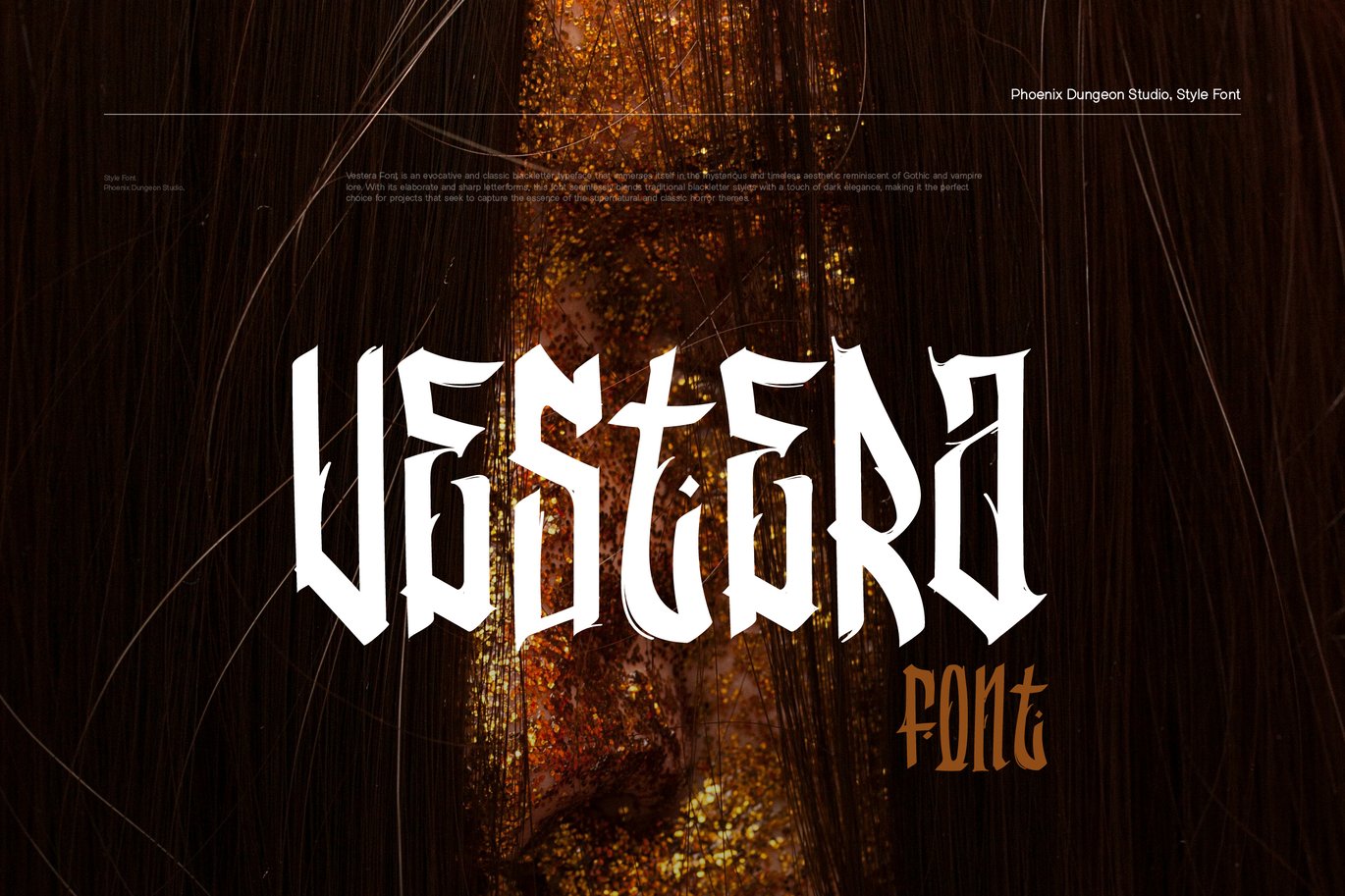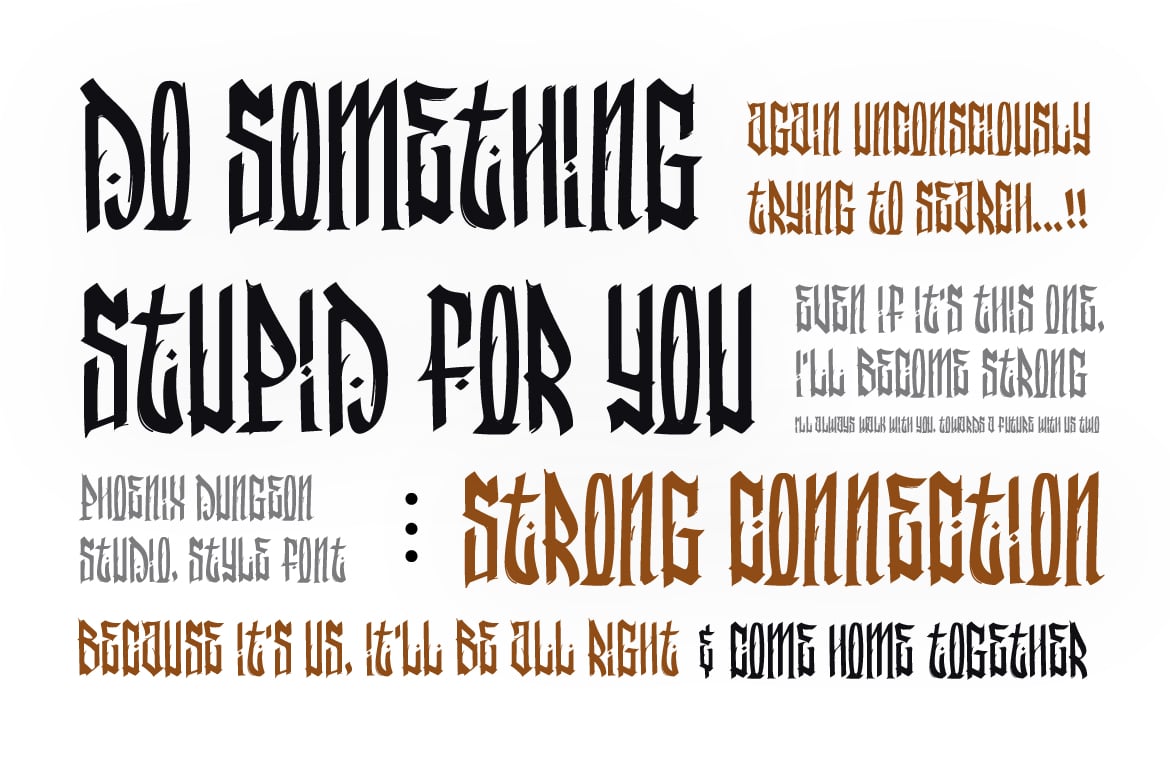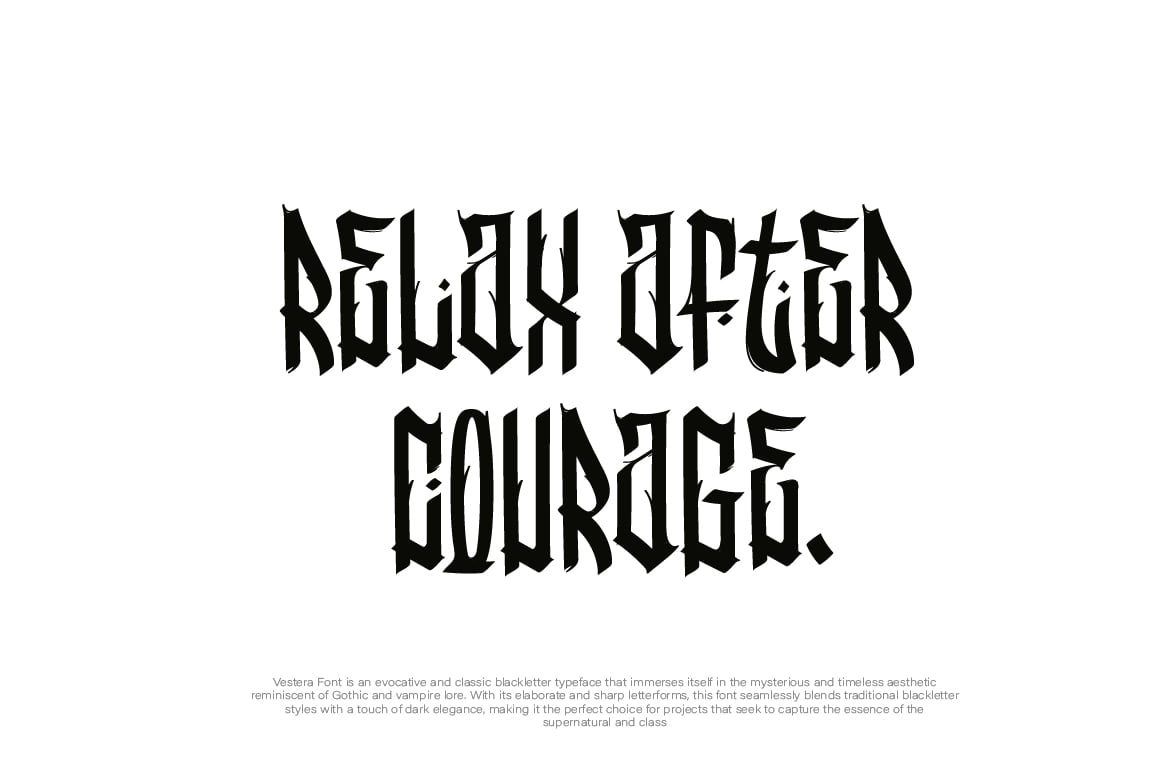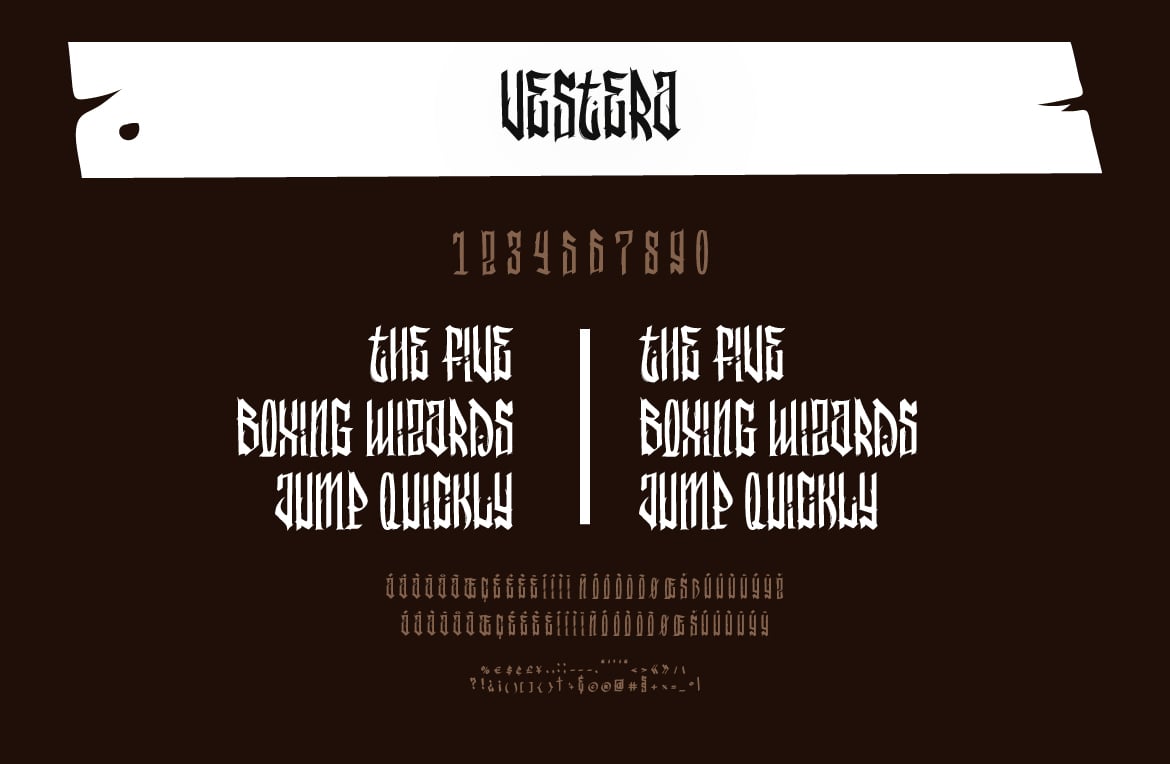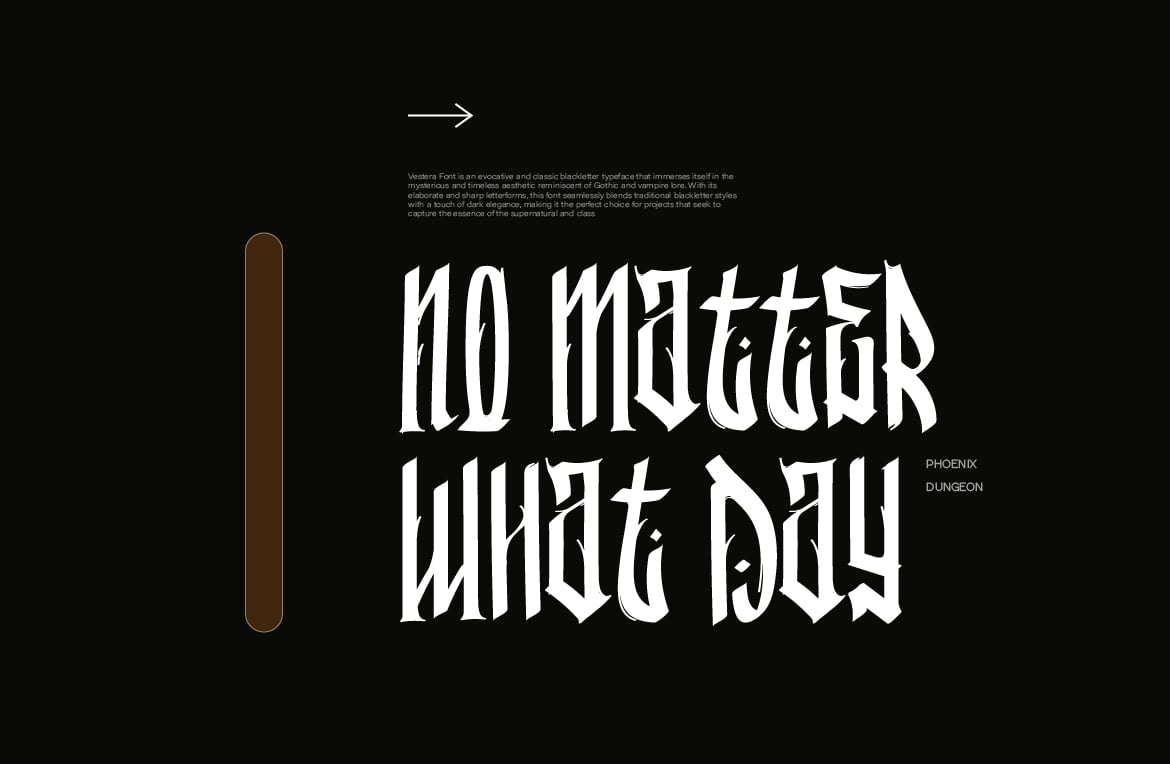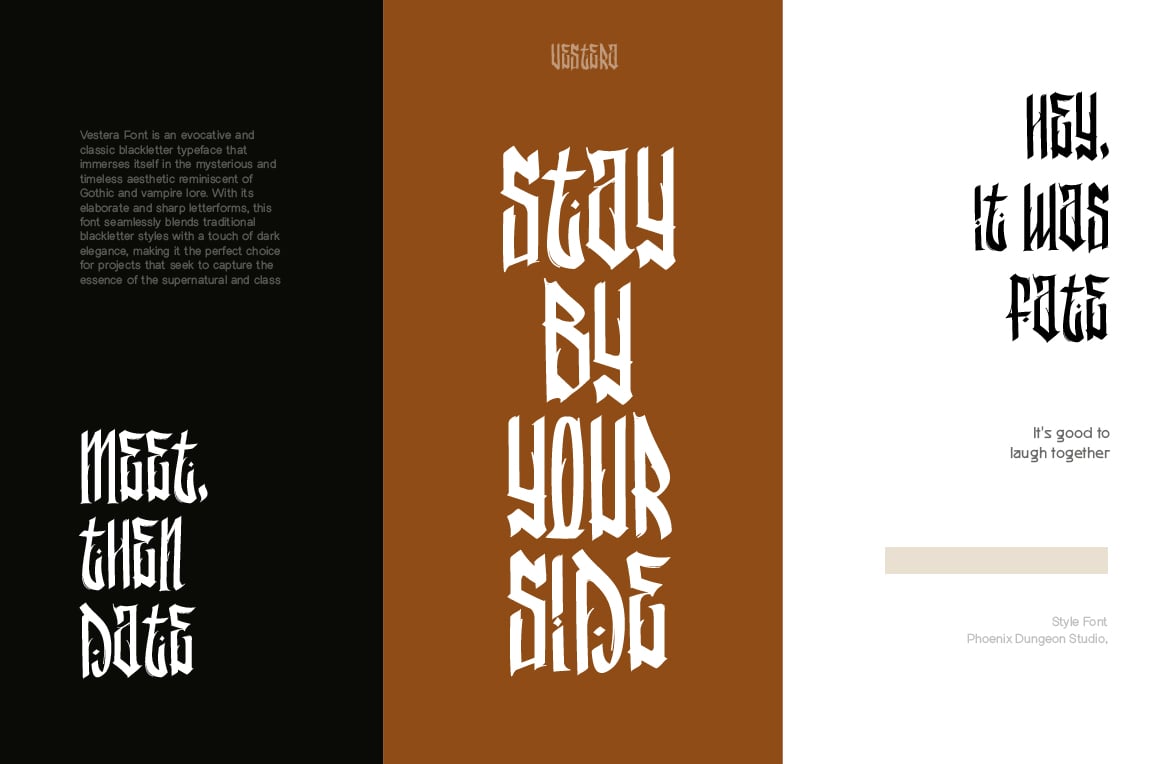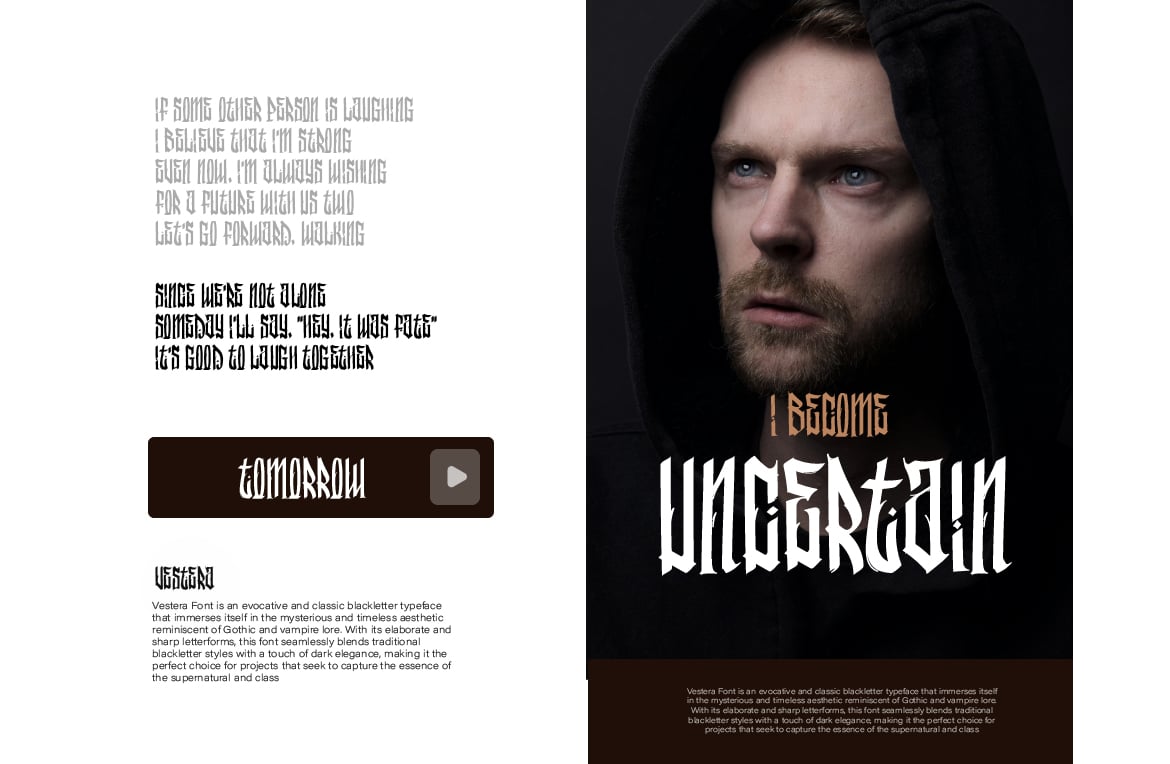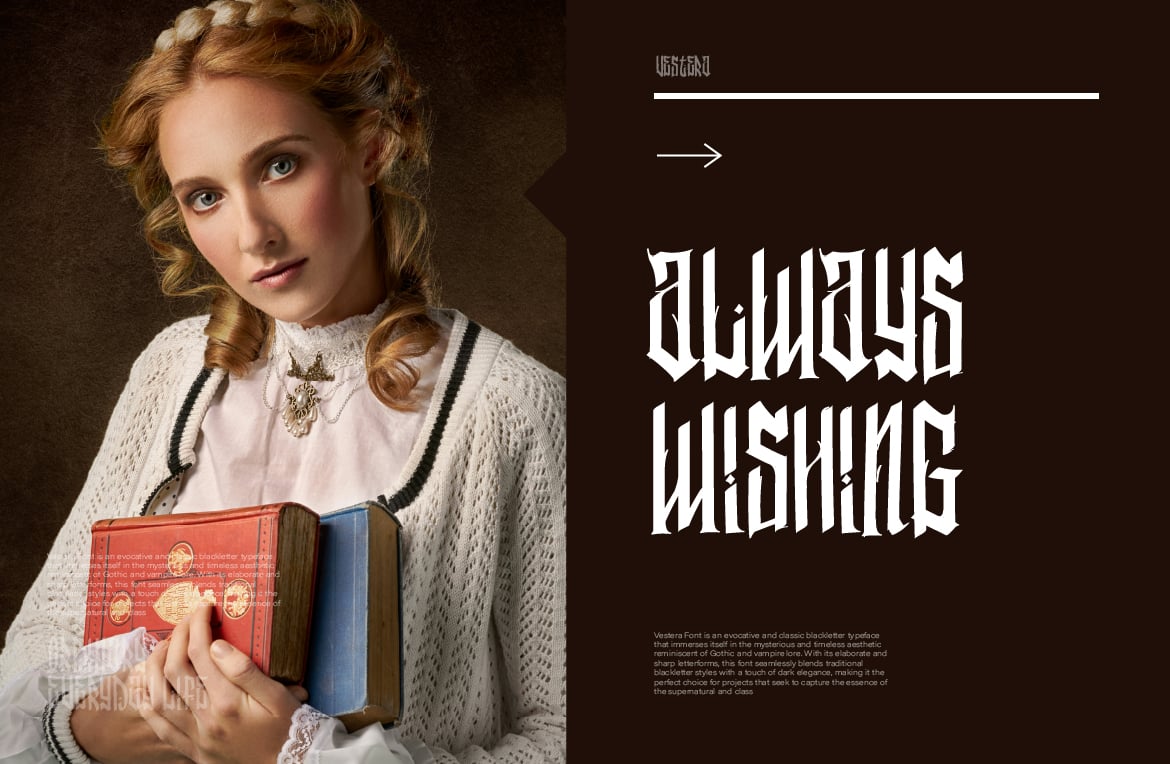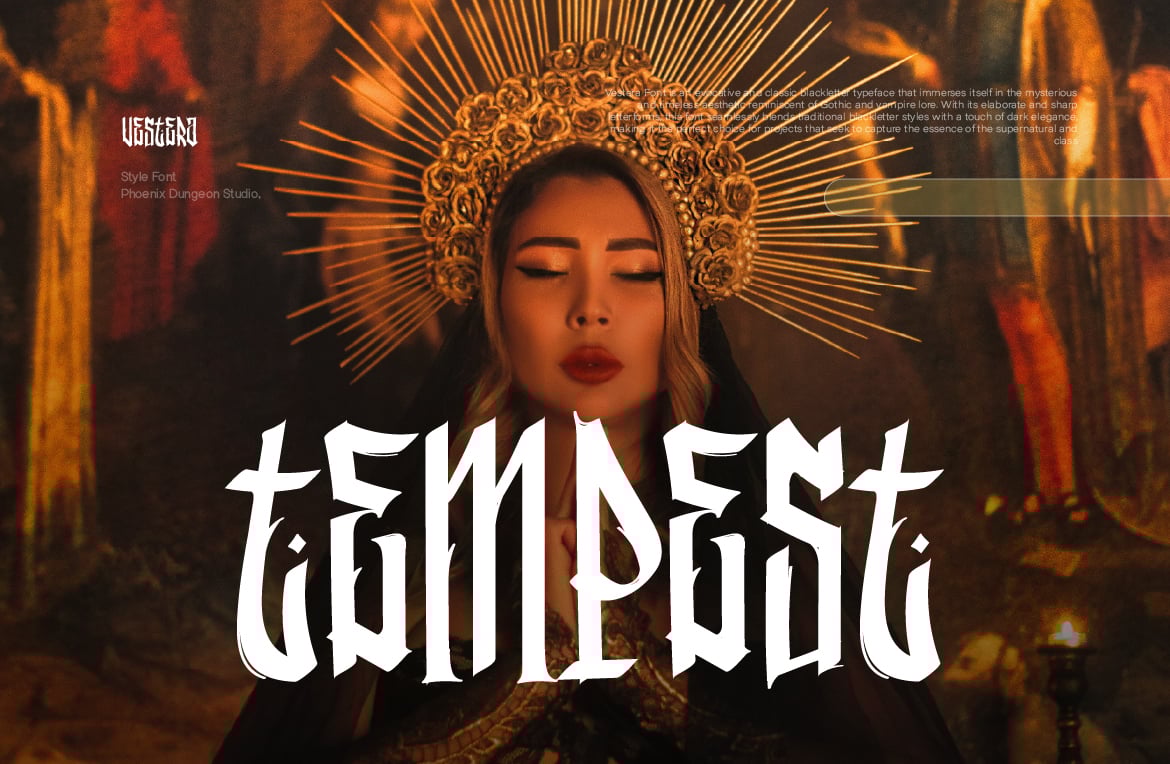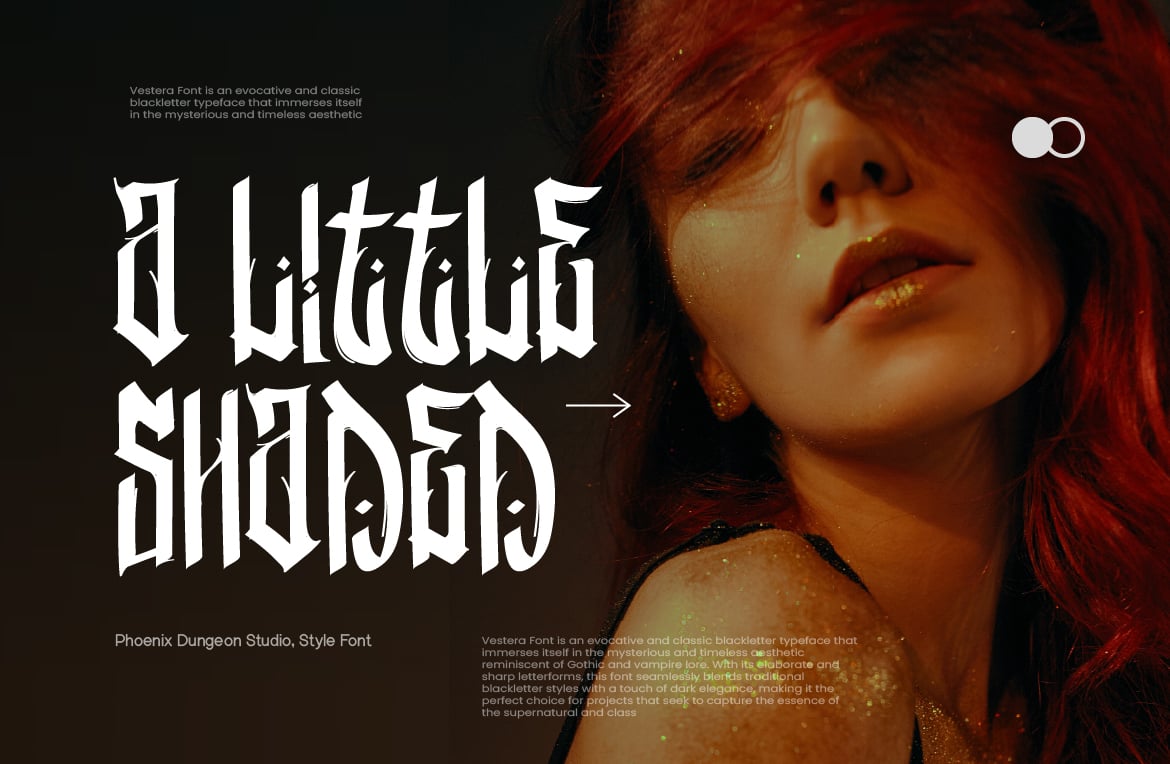
Vestera Font
Vestera Font is an evocative and classic blackletter typeface that immerses itself in the mysterious and timeless aesthetic reminiscent of Gothic and vampire lore. With its elaborate and sharp letterforms, this font seamlessly blends traditional blackletter styles with a touch of dark elegance, making it the perfect choice for projects that seek to
capture the essence of the supernatural and classic Horror Themes.